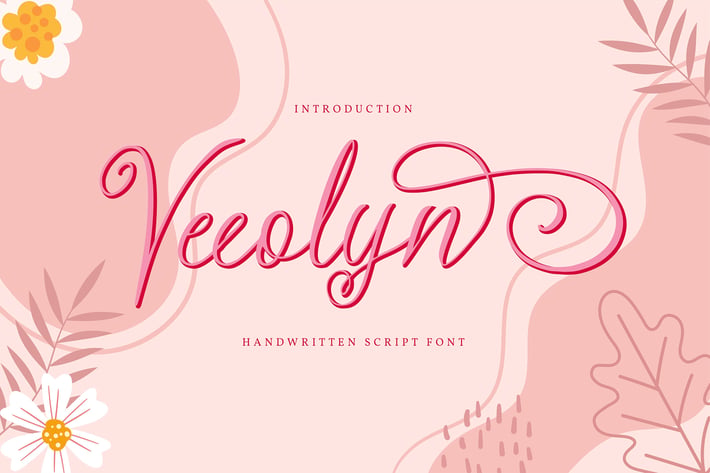
Veeolyn | Handwritten Script Font
Veeolyn | Handwritten Script Font with a calligraphy style, So beautiful on invitation like greeting cards, branding materials, business cards, quotes, posters, and more!